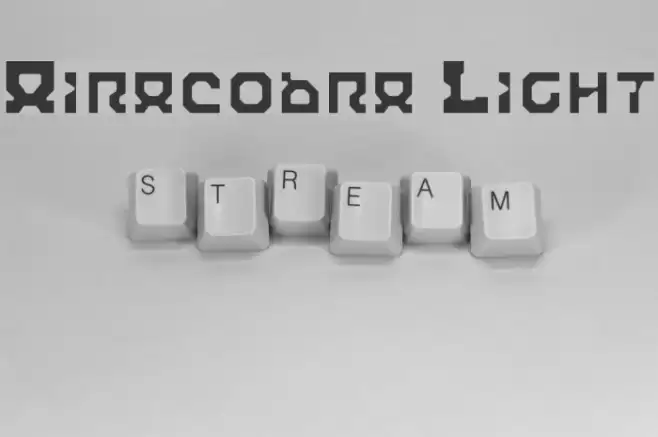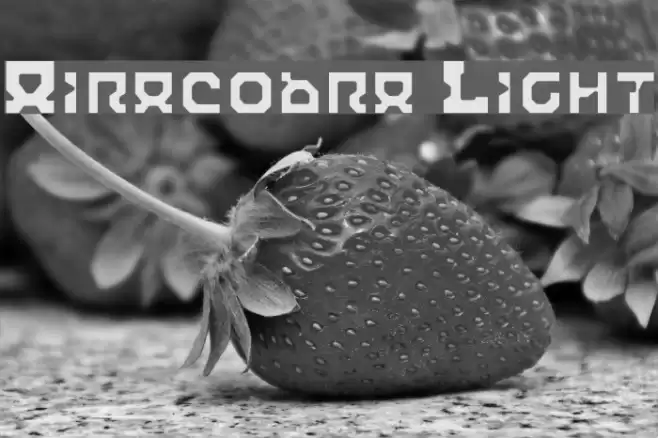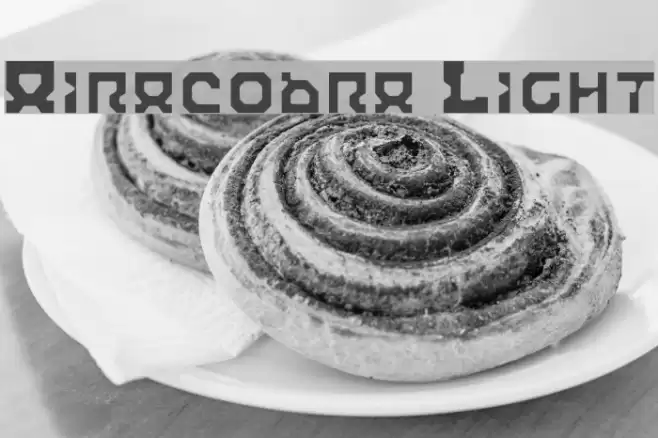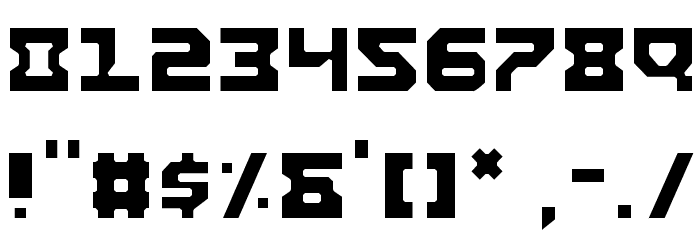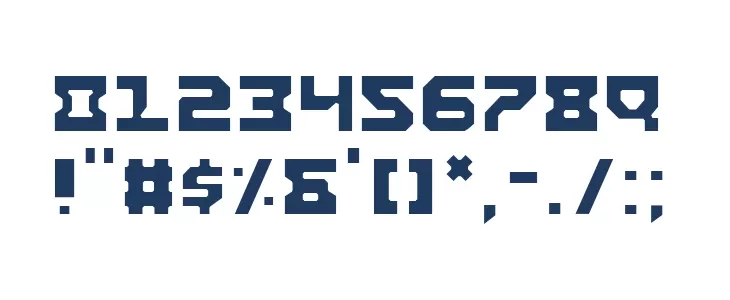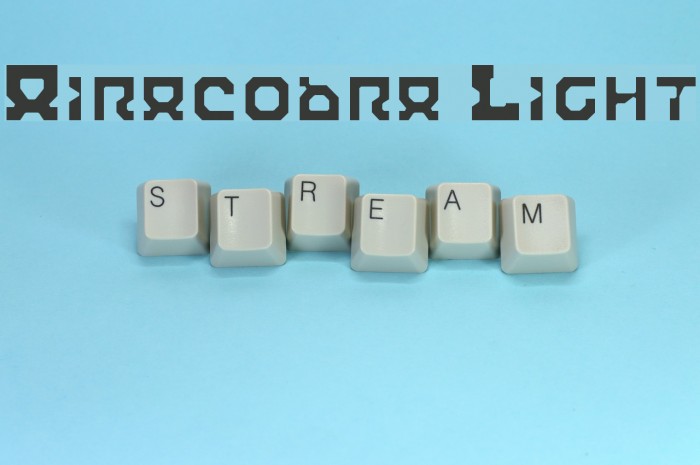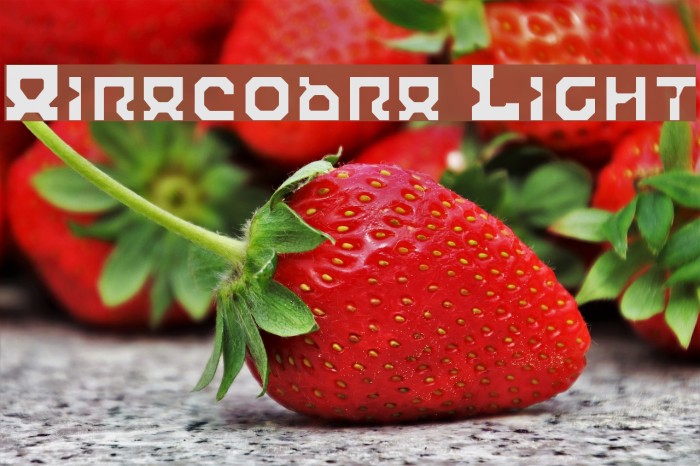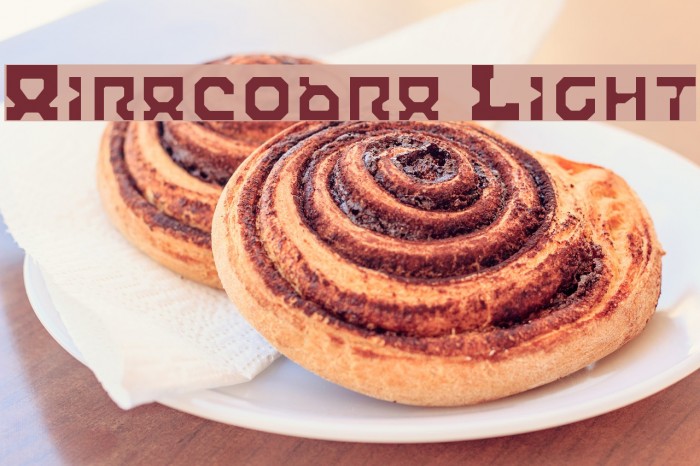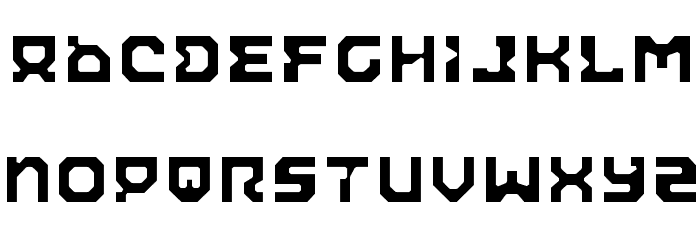
Airacobra Light Font
Airacobra Light Description
This font features a bold, geometric design with a distinct, angular appearance. The characters are constructed with sharp edges and a uniform thickness, giving it a strong and impactful presence. The uppercase and lowercase letters maintain a consistent style, with a futuristic and industrial feel. The numbers and special characters are designed to match the overall aesthetic, ensuring a cohesive look across all text elements. This font's unique style makes it stand out, making it suitable for projects that require a modern and edgy touch.
A bold, geometric font with a futuristic and industrial design from Images & Symbols fonts.
- Proposed Projects: Ideal for branding, posters, video game graphics, and any project needing a modern, edgy look.